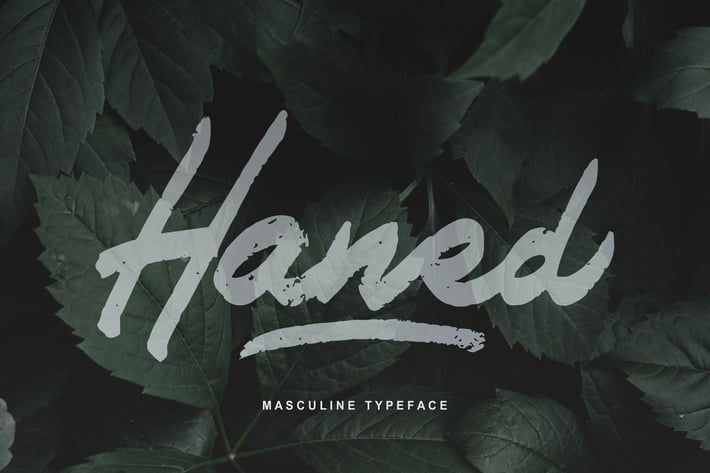
Haned | Masculine Typeface Font
Haned | Masculine Typeface Font with a calligraphy style, So beautiful on invitation like greeting cards, branding materials, business cards, quotes, posters, and more!